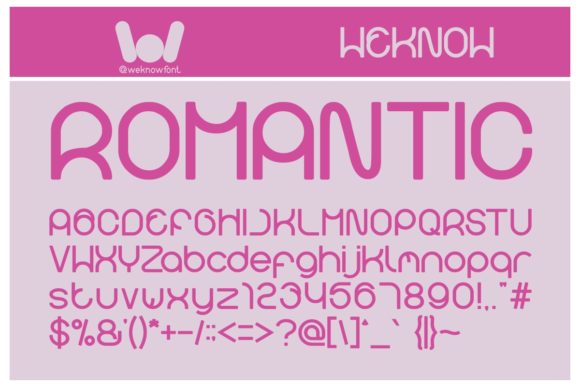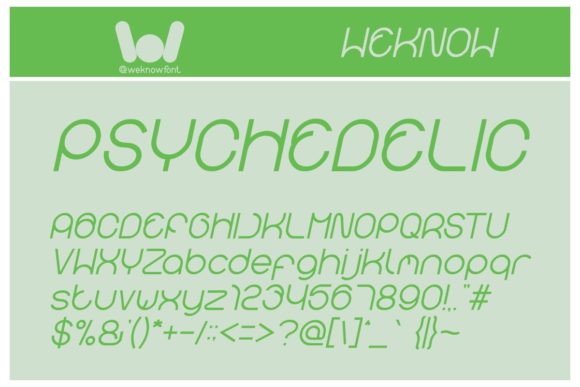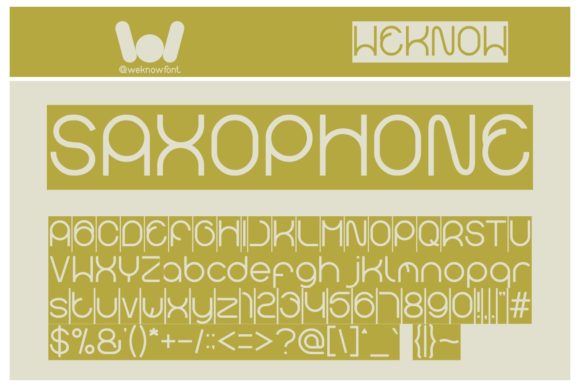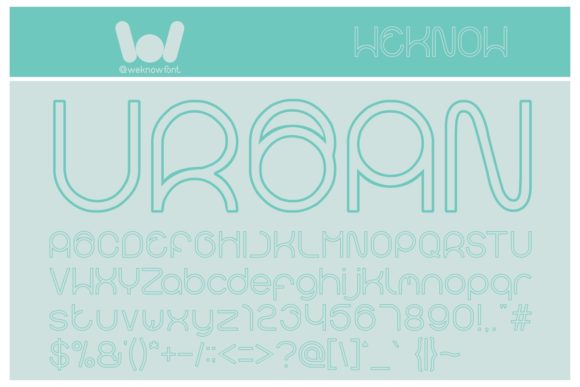
The Designer’s Delight: Gembira Font
I still remember the frustration of working on a project, hours spent brainstorming ideas, only to hit a roadblock when it came to choosing the perfect font. My client wanted something modern, yet playful; elegant, yet attention-grabbing. It was then that I stumbled upon the Gembira Font – a round lettered, minimal display font that instantly caught my eye. ✨
First Impressions: A Review of Gembira Font
As I explored the Gembira Font, I was thrilled to discover its unique characteristics. Here’s what I love:
- ✅ Unique Round Lettering: Gembira’s circular lettering gives it a playful and modern feel that’s perfect for making a statement.
- ✅ Minimalist Design: The clean lines and simple shapes make it versatile for various design projects, from logos to posters.
- ✅ High Versatility: It works well in both digital and print formats, making it a great addition to any design library.
However, no font is perfect, and Gembira has a few quirks:
- ⚠️ Limited Lowercase Options: Some users might find the limited variations in lowercase letters a bit restrictive.
- 🤔 Kerning Issues: As with any font, you might need to adjust kerning for optimal results, especially in larger text sizes.
The Story Behind Gembira
Gembira was designed with the goal of creating a font that’s both fun and functional. Inspired by modern geometric shapes, the designer aimed to craft a typeface that’s perfect for creative projects that demand a bit of flair. Whether it’s a playful logo or a bold poster, Gembira is designed to make your designs pop! 🎉
| What type of projects is Gembira best suited for? | Gembira is ideal for creative projects like logos, posters, and digital content that require a modern and playful touch. |
| Is Gembira suitable for body text? | While Gembira can be used for short paragraphs, it’s primarily designed as a display font. For longer texts, consider a more readable font. |
| Does Gembira support OpenType features? | Yes, Gembira supports OpenType features, including ligatures and stylistic alternates, which can enhance your designs. |
Gembira Font has been a game-changer for my design projects, and I’m confident it can do the same for you. With its unique style and versatility, it’s an excellent addition to any design library. So go ahead, give Gembira a try, and watch your creative ideas shine! ✨